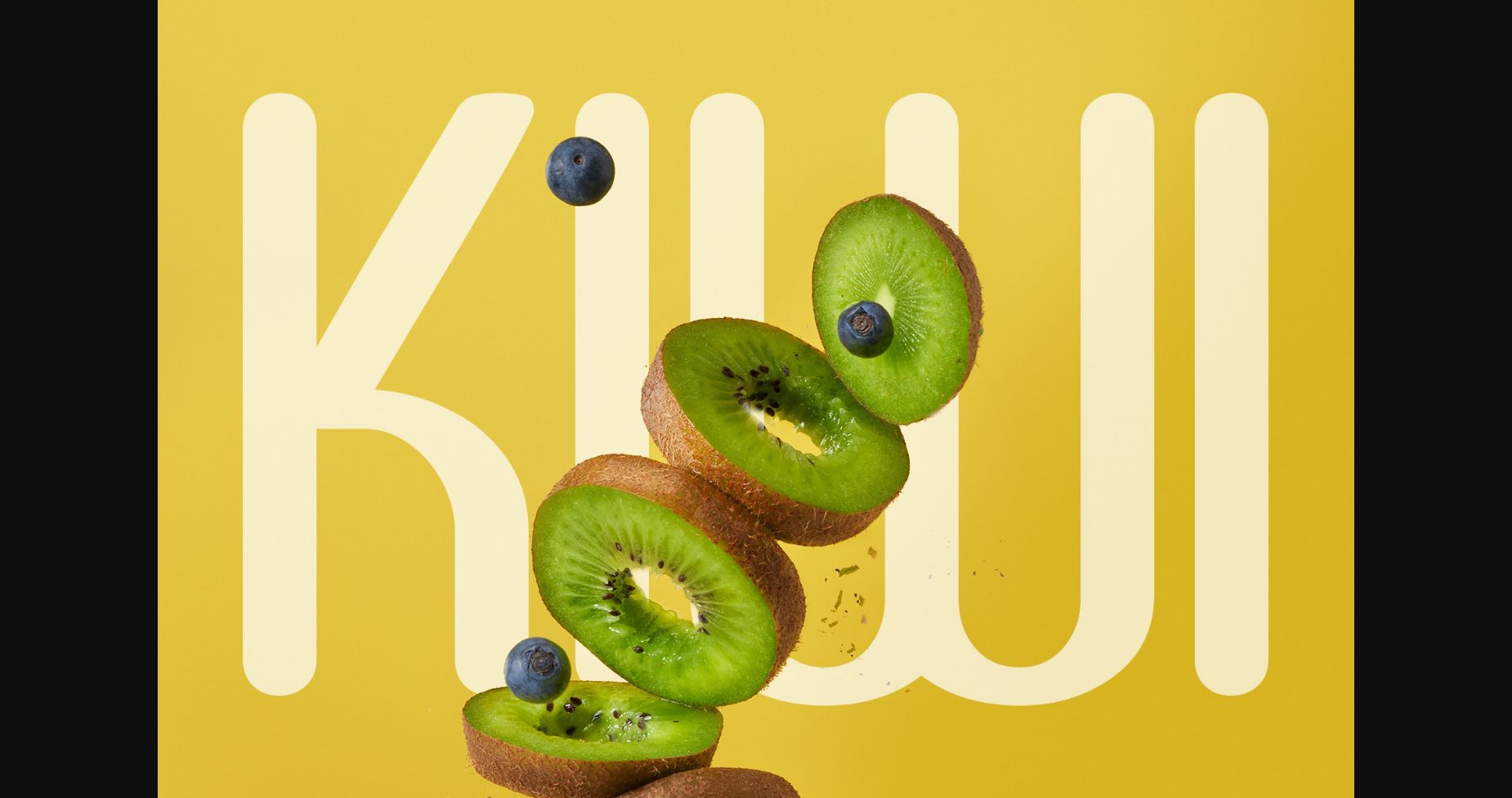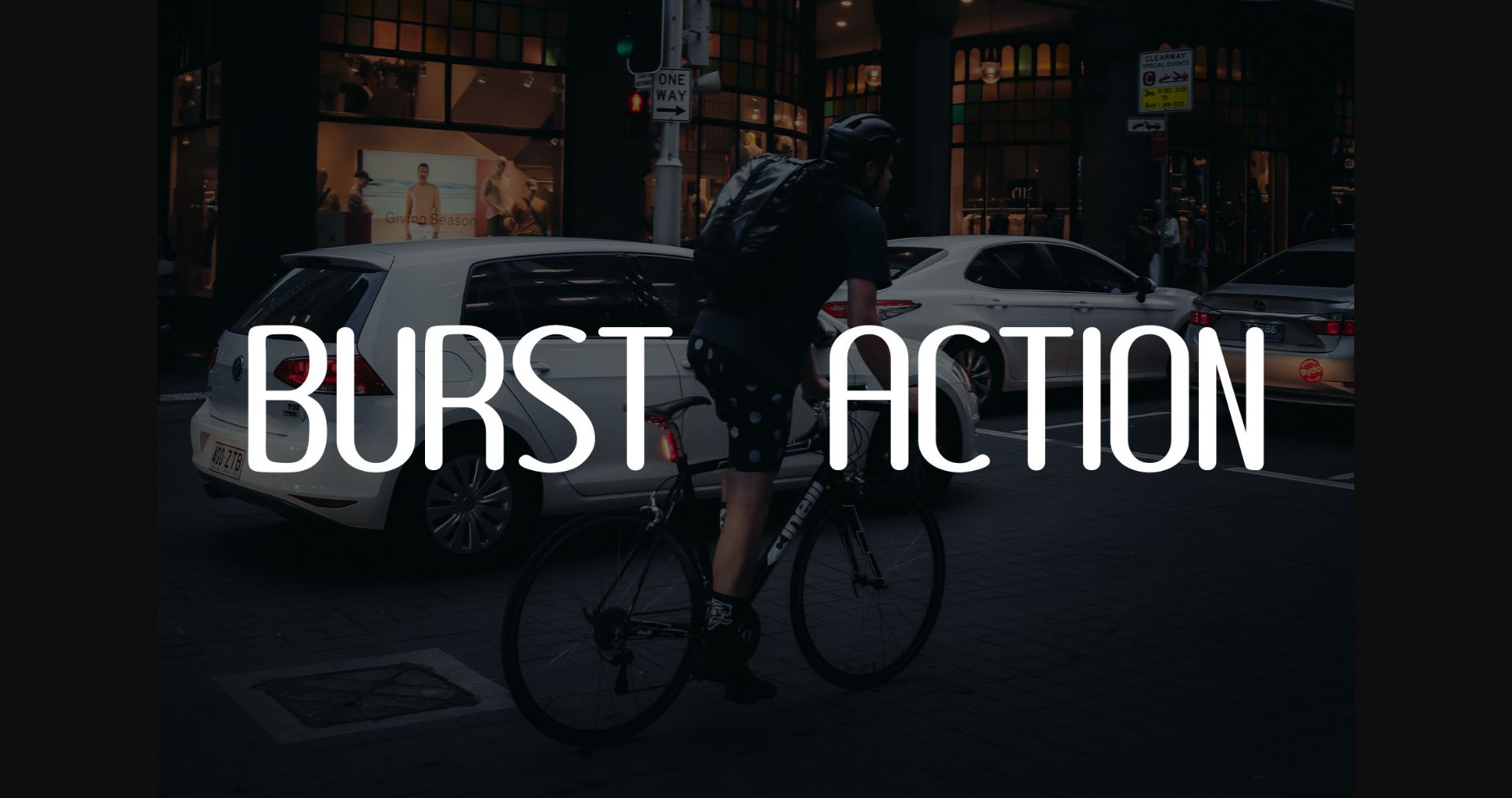
About England Font
England is a marvelous sans serif font. Its well-assorted letters make this font incredibly versatile and fun to use! Add it to your most creative ideas and notice how it makes them stand out!